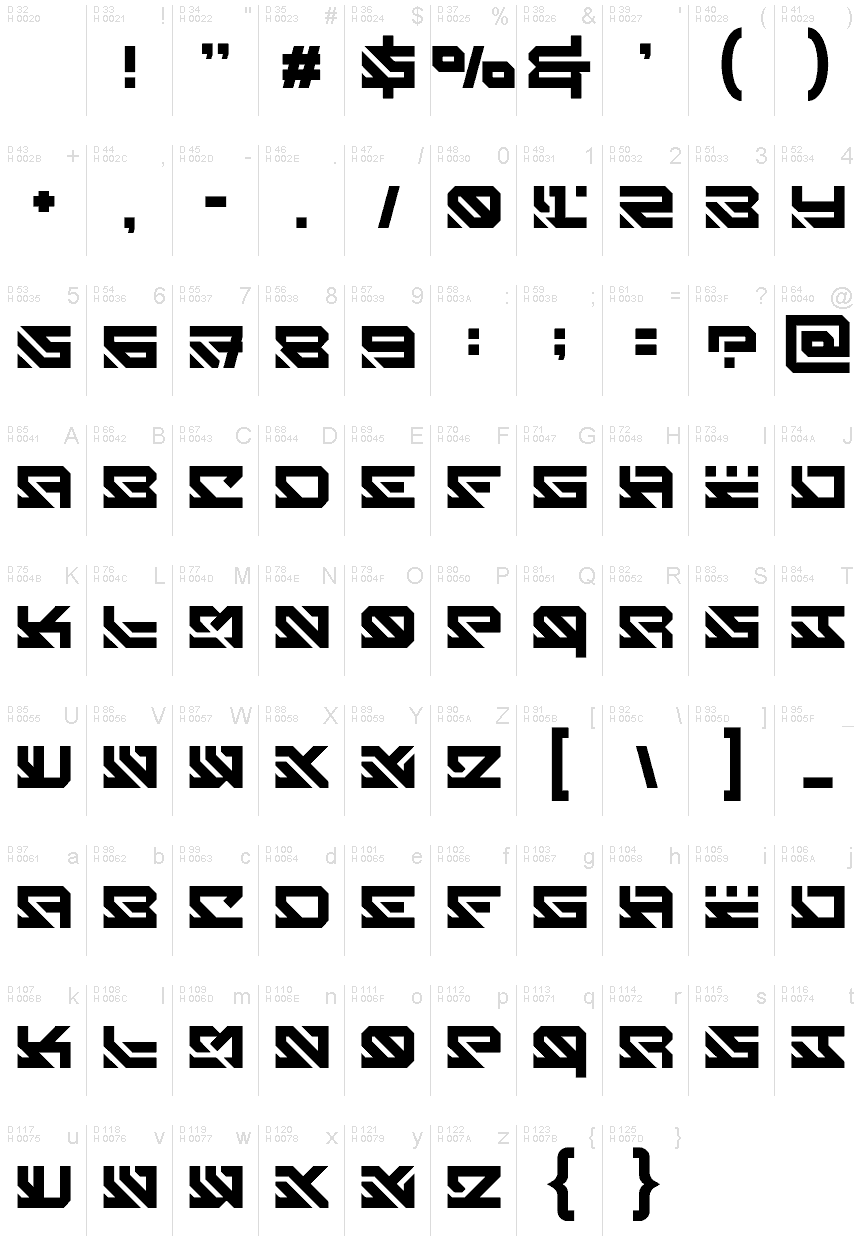
WAR EAR
War Ear font by Gilang Ternadho of Maikohatta is a futuristic display typeface with expanded width and geometric, angular elements. Its clean appearance builds on the essence of modern digital typography, giving it a unique tech-inspired character. The font features harmonious arrangements of rounded curves and straight lines in its design.
This free futuristic font will do the job in tech-related project designs like posters, banners, websites, apps etc. With its distinct look, War Ear may also be used to represent magazines and books which focus on information technology or science fiction related themes.